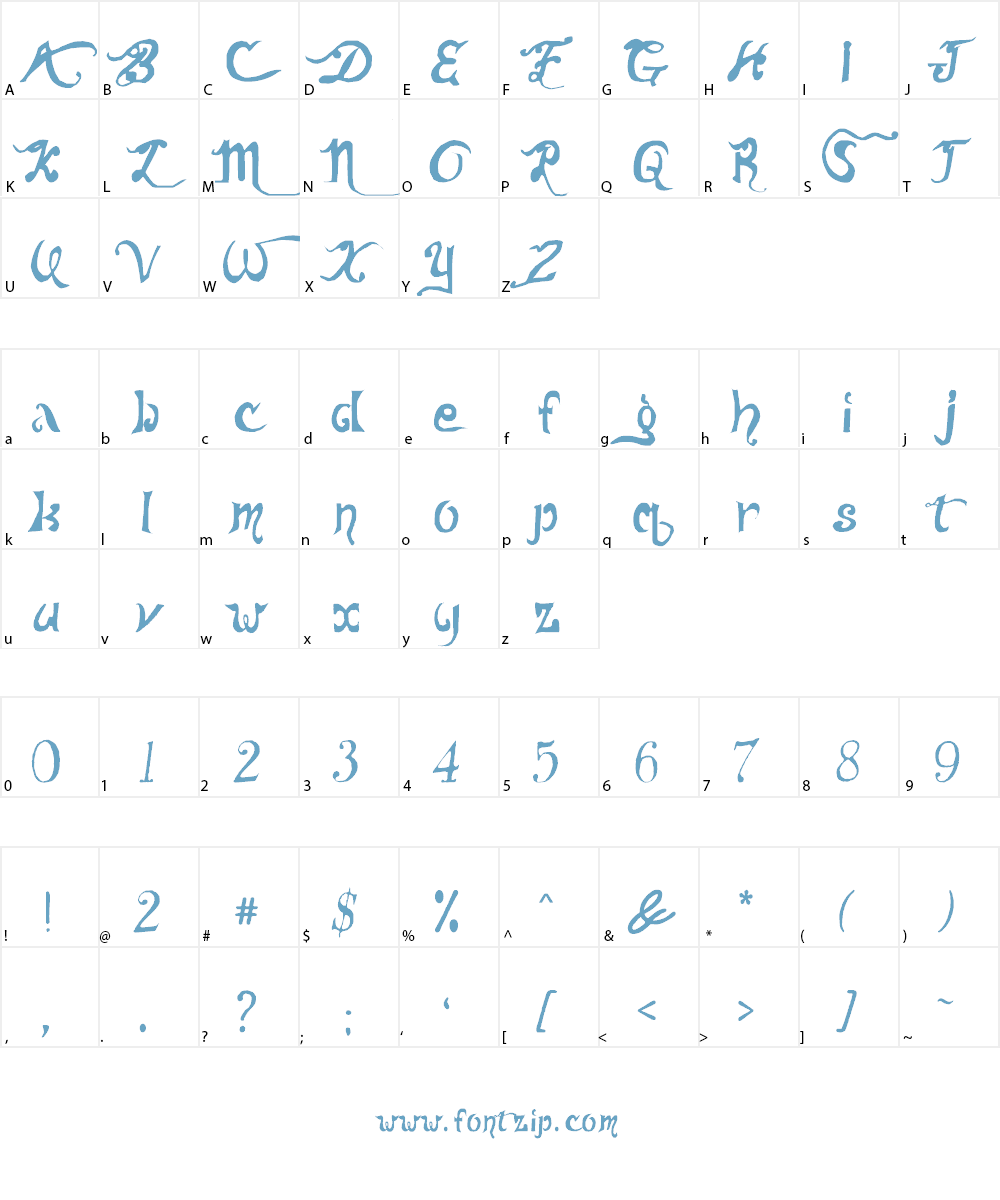
This font was inspired by a vintage newspaper article titled 'What a Dog Can Do'. You can see a copy of that typeface in my attached image. It is a beautiful ornate and quirky typeface that I just couldn't resist using as a base for this new font. Hope you enjoy using it, for your personal use only. Contact me for commercial use.